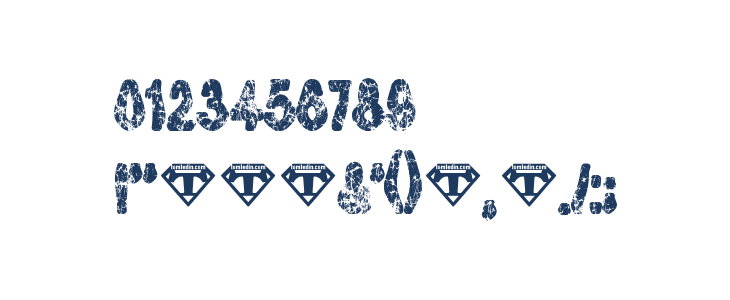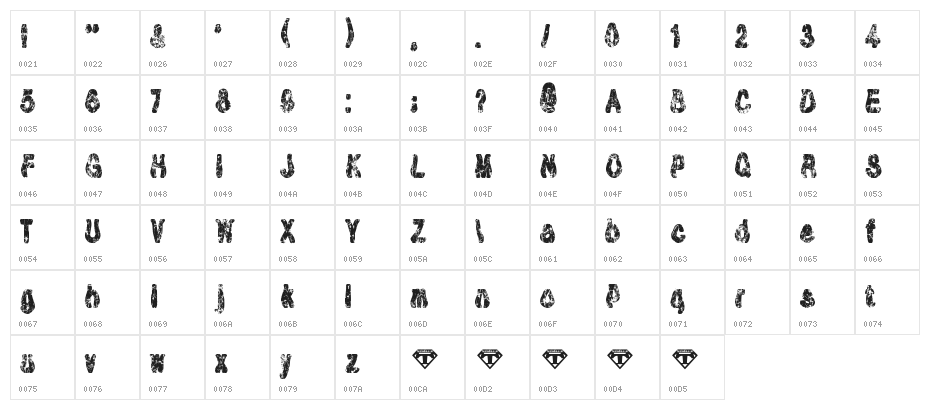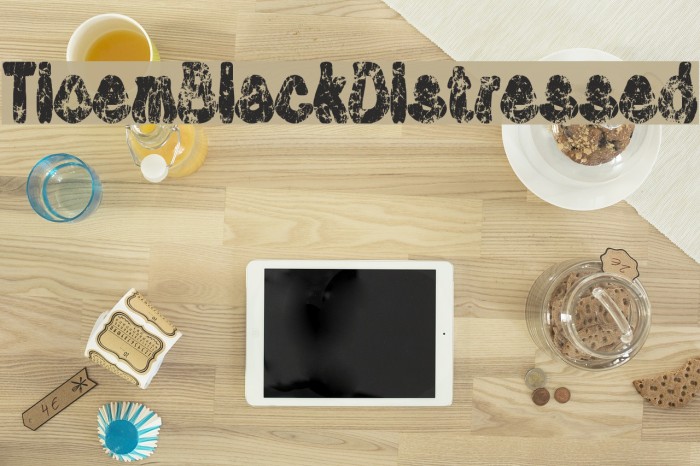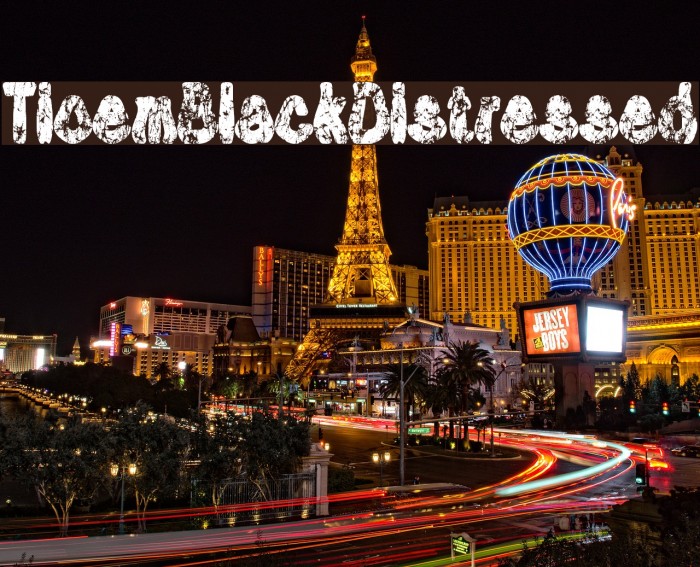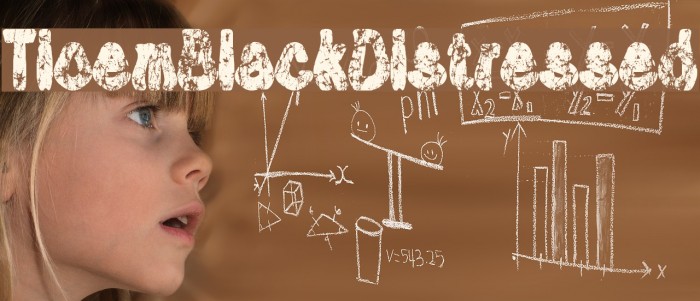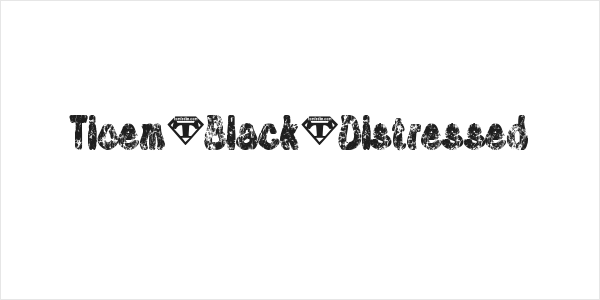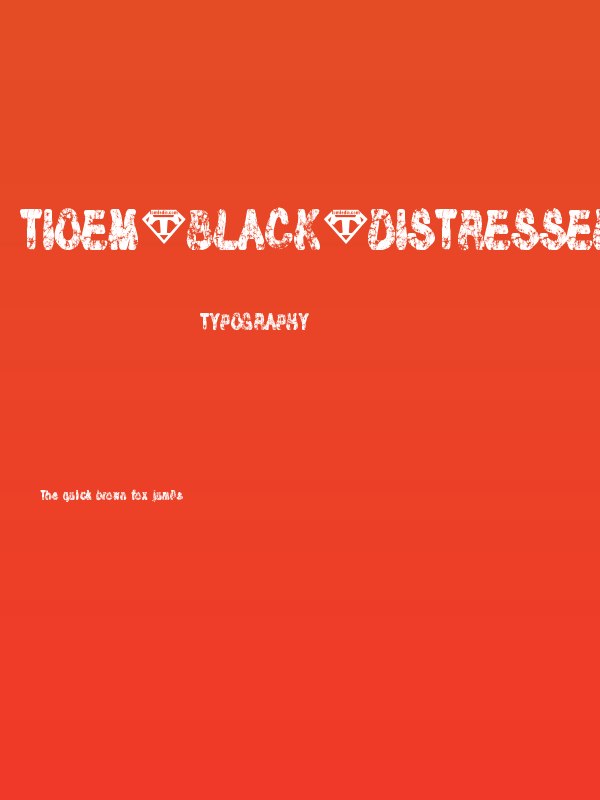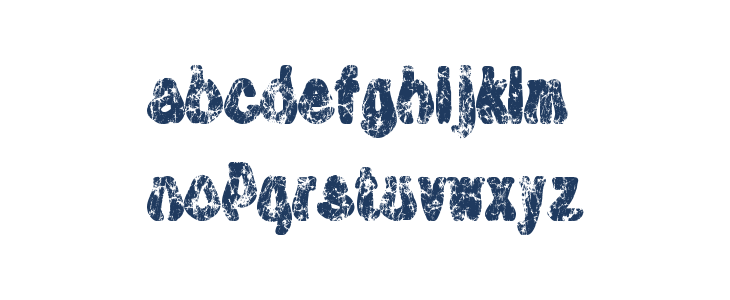
Tioem-Black-Distressed Font
Tioem-Black-Distressed Description
This font features a bold, distressed style that gives it a rugged and worn appearance. The characters are heavily textured, creating a sense of age and weathering, as if they have been exposed to the elements over time. This effect is consistent across all letters, numbers, and symbols, providing a cohesive look. The uppercase and lowercase letters maintain a uniform height and width, contributing to a balanced and structured appearance despite the distressed texture. The numbers and special characters follow the same design principles, ensuring they blend seamlessly with the alphabet. This font's unique style makes it ideal for projects that require a vintage or grunge aesthetic.